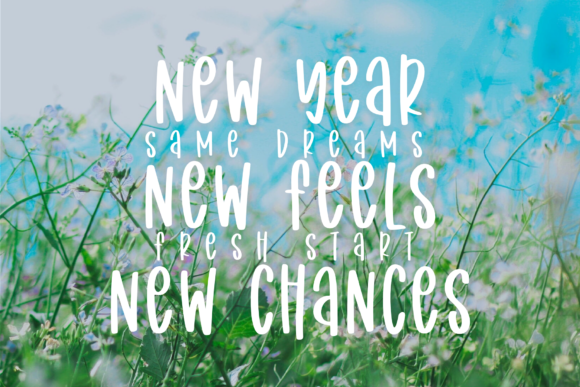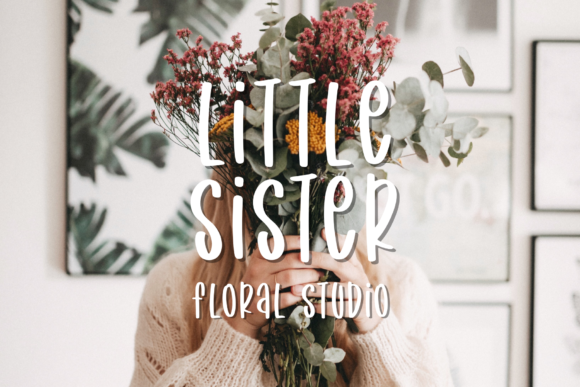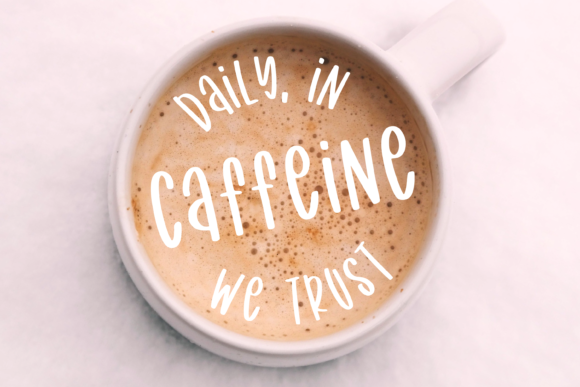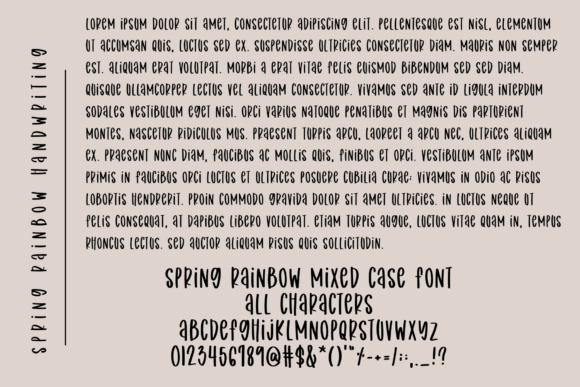
Spring Rainbow Font
About Spring Rainbow Font
Spring Rainbow is a quirky and natural styled handwritten font.
You can use this font for various projects: logos, branding, invitations, greeting cards, blog post, and much more!